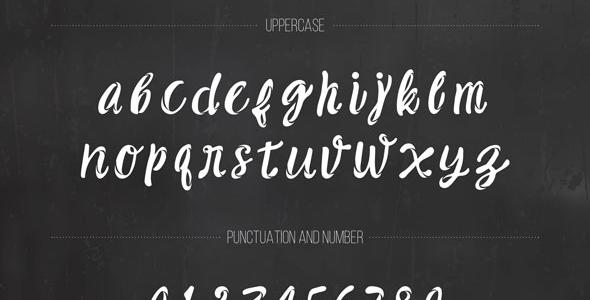
Swave Typeface
SWAVE – a combination of brush and doodle! will great on poster, flyer, t-shirt, your brand identity, invitation like greeting cards, branding materials, business cards, quotes, posters, and more! Features : Basic Latin A – Z, Number, and Punctuation file included: ttf